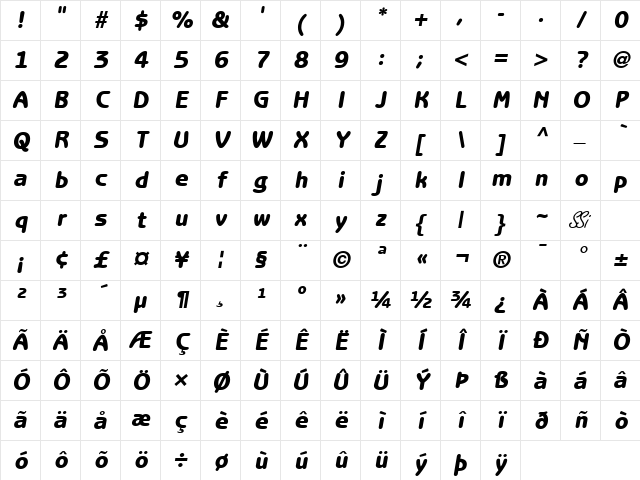
Complete Express Deco GothicBlack SSi Black Italic glyph index. Displaying only characters natively supported by Express Deco GothicBlack SSi Black Italic font.
Express Deco GothicBlack SSi takes a clean, functional approach - its unadorned letterforms prioritise legibility and work reliably across screen and print environments. The slanted form adds forward momentum and visual energy.
Font Pairing: Works well alongside a characterful serif or display font that can carry the expressive load while Express Deco GothicBlack SSi handles the functional copy.
Pro Tip: Use Express Deco GothicBlack SSi for UI labels, navigation, and short-form body copy where clean legibility is the priority.